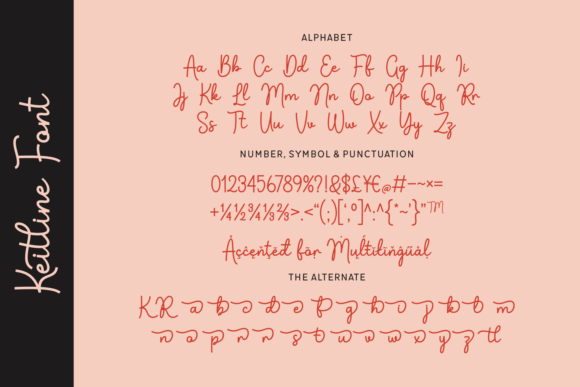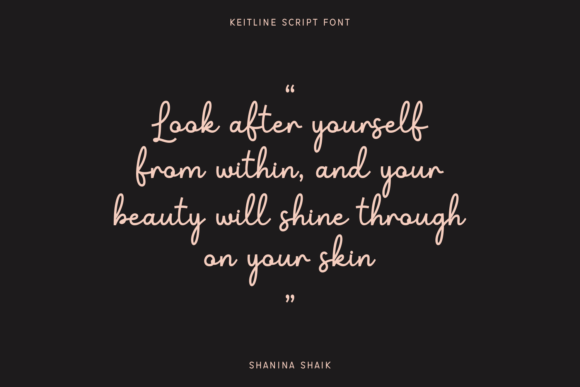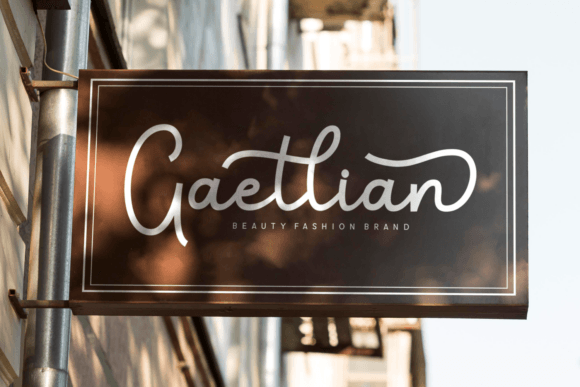
Introduction to Keitline Font
Keitline is a charming monoline script font with smooth curves and a playful swash design.
Its clean and minimalist strokes make it perfect for a wide range of projects, from branding and packaging to wedding invitations and social media posts Keitlineโs versatile, cheerful style adds a friendly and modern touch to your creative works.
Key Features of Keitline Font
Why Choose Keitline Font?
Keitline Font offers exceptional quality and versatility, making it a valuable addition to your design toolkit. Whether you’re creating for personal projects or commercial use, Keitline Font delivers professional results.